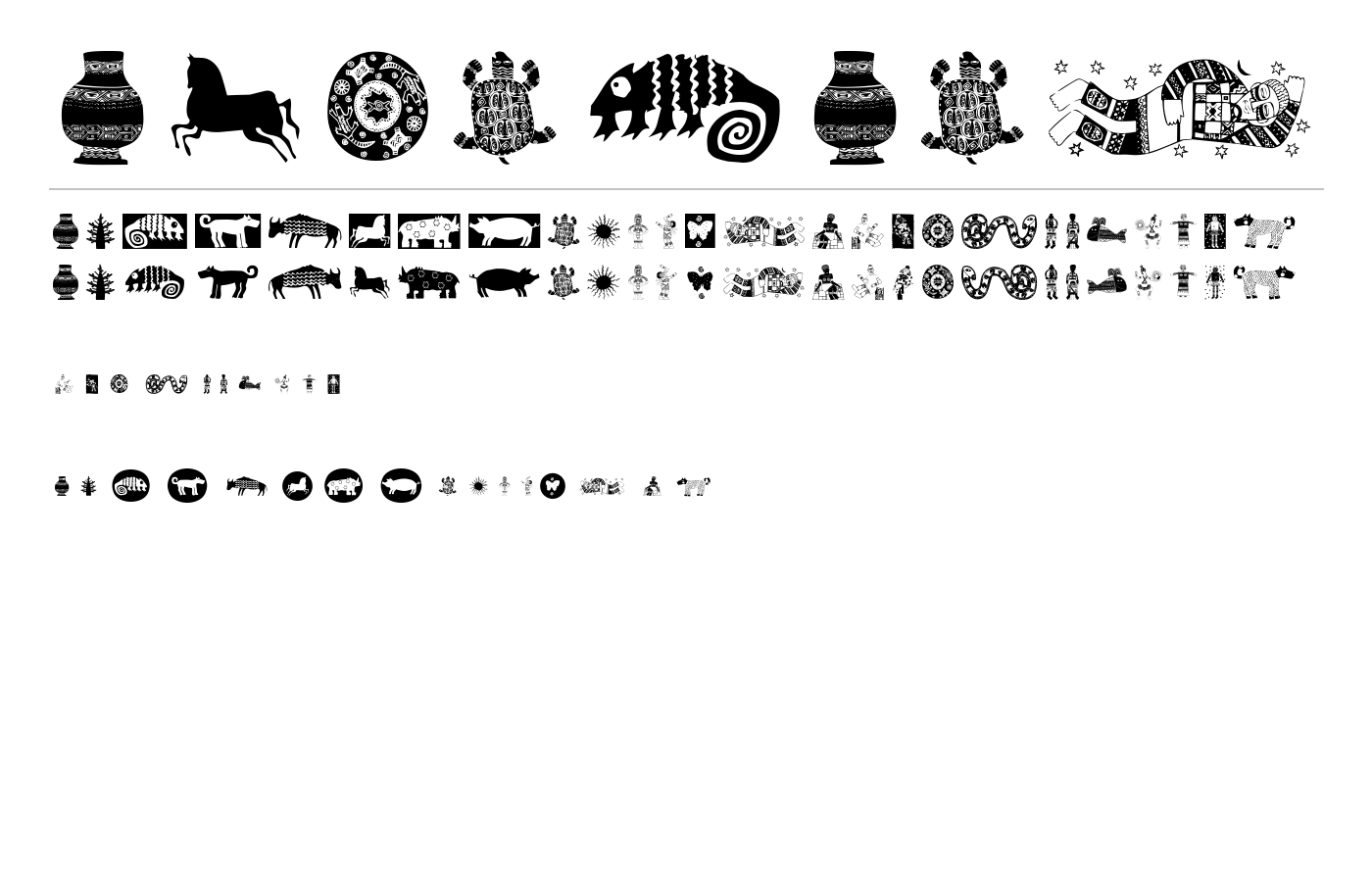
Africain Font is a decorative, symbolic font inspired by traditional African art and motifs, featuring intricate patterns and animal shapes rather than conventional letters. Its bold, black-and-white silhouettes evoke a tribal and cultural aesthetic, making it ideal for creative projects seeking to convey heritage, storytelling, or ethnic themes in posters, branding, and artistic designs. This font works best when used as a display element to add a unique, cultural flair rather than for body text.
Africain Font
About Africain Font